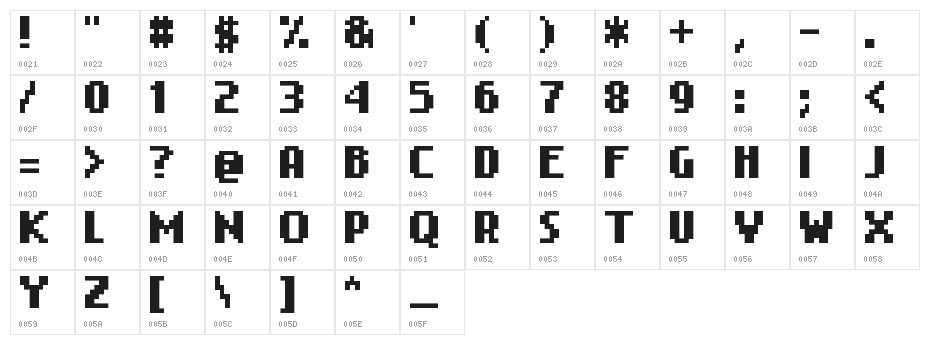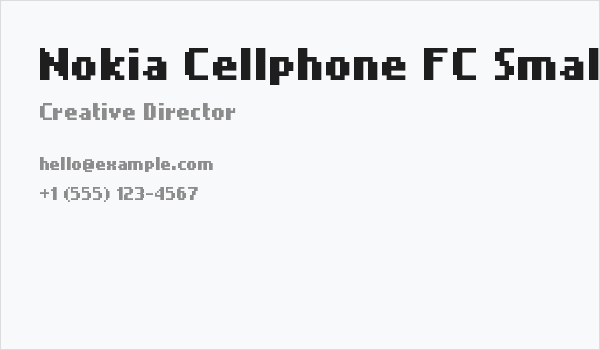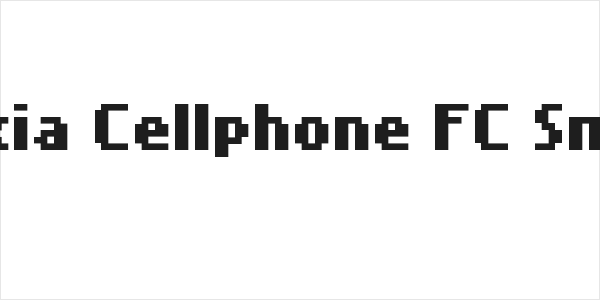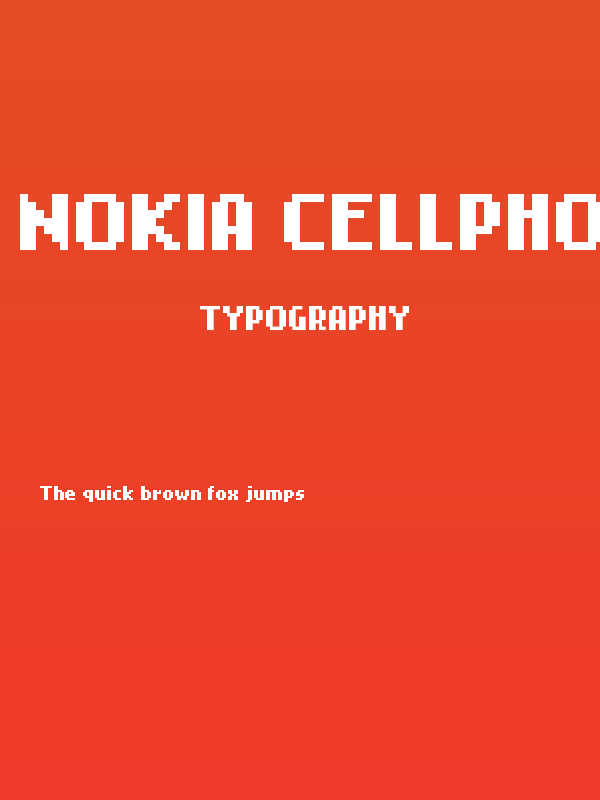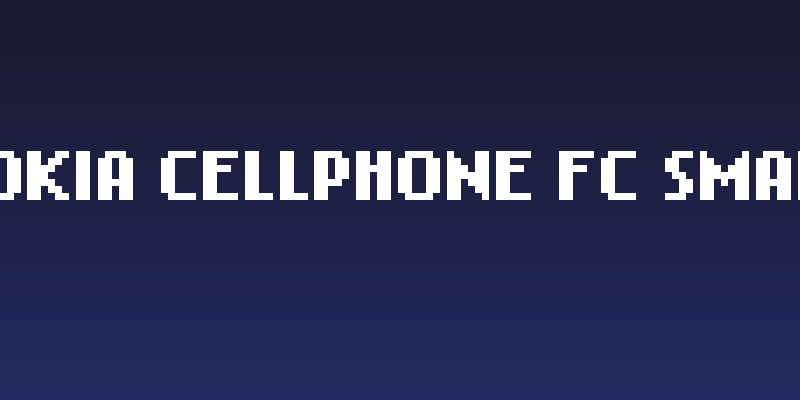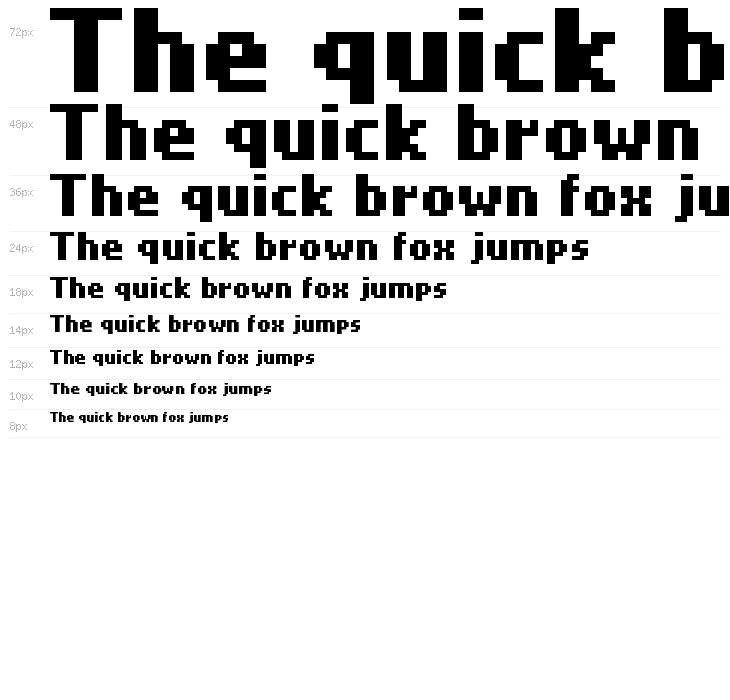
Nokia Cellphone FC Small Font
Nokia Cellphone FC Small Description
This font features a bold, pixelated style reminiscent of early digital displays and retro gaming aesthetics. Its blocky, geometric shapes are consistent across all characters, creating a uniform and cohesive look. The uppercase and lowercase letters maintain a similar height, enhancing its compact and efficient design. Numbers and special characters follow the same pixelated pattern, ensuring readability and a nostalgic feel. This font's simplicity and clarity make it ideal for digital displays and projects that aim to evoke a sense of nostalgia for early computing and gaming.